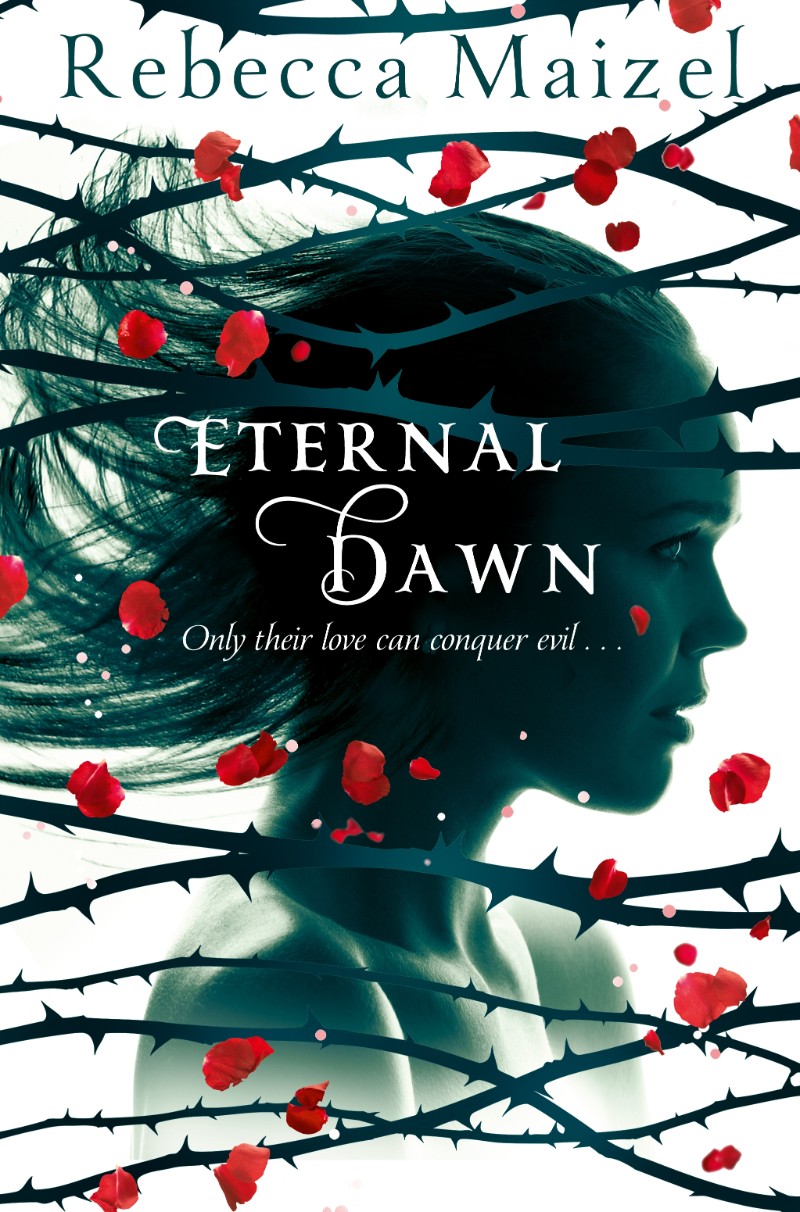
Eternal Dawn Font
The text on the book cover is Yana, a display serif font family by Laura Worthington. It comes in three weights: Regular, Bold, and Italic, with swashes, alternatives, small caps, and large caps.